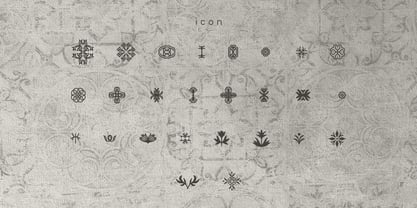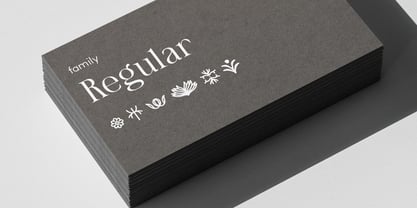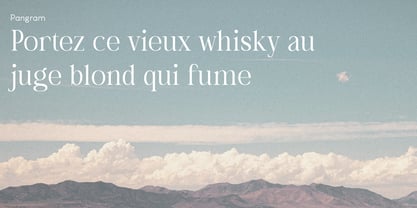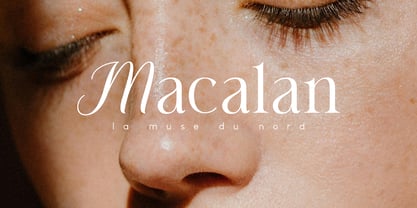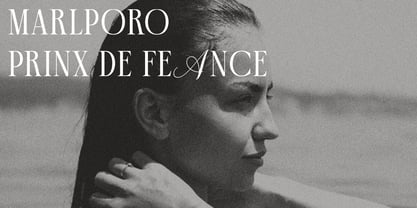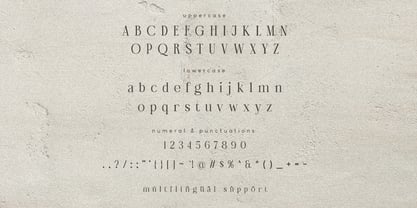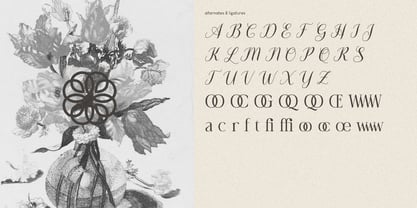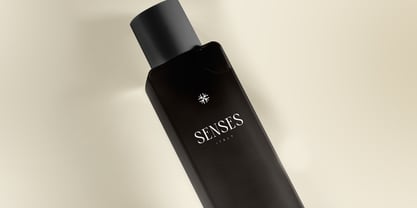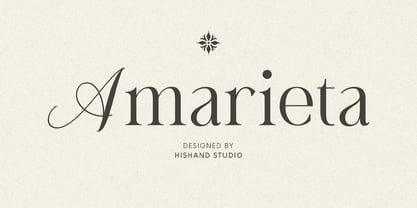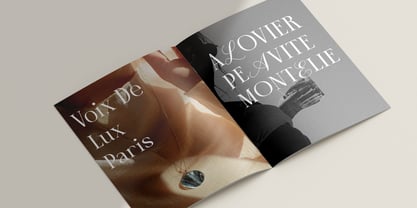
Amarieta
by Hishand Studio
The Amarieta Font Family was designed by Putu Dody Permana and published by Hishand Studio. Amarieta contains 2 styles and family package options. More about this family
Amarieta is a refined serif hybrid font that elegantly combines the structure of classic serifs with subtle script-inspired curves. Designed for high-end use, it offers a luxurious look with smooth transitions, stylish terminals, and graceful character shapes. The script influence is tastefully applied, adding personality without sacrificing readability. Amarieta’s high contrast strokes and elegant flow make it ideal for branding, wedding invitations, editorial layouts, and upscale packaging. It stands out in both large headlines and refined logotypes, offering a perfect balance between formality and charm. With its distinctive yet versatile style, Amarieta evokes a sense of timeless beauty and modern sophistication. Every letter is crafted to reflect elegance and confidence, making it a perfect choice for premium design projects that demand a touch of class.
Complete with
• ligatures
• alternates
• regular
• icon
• kerning
• multilingual support